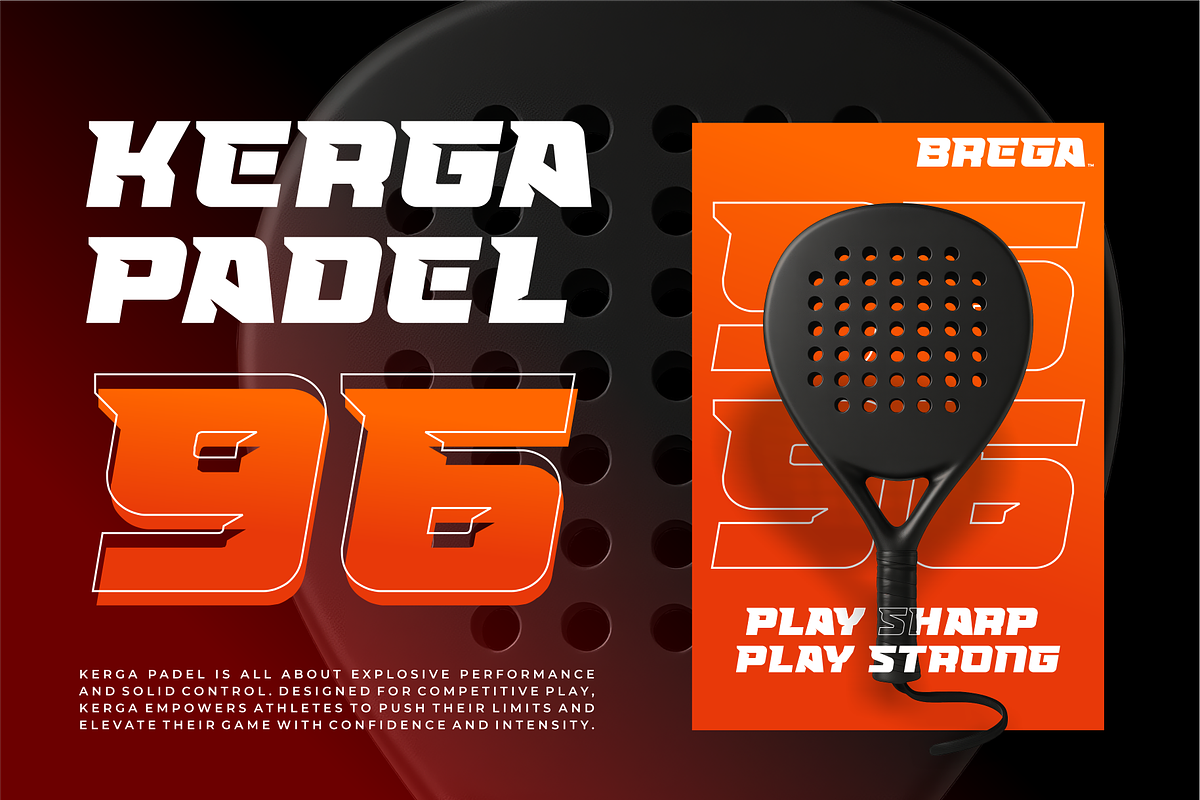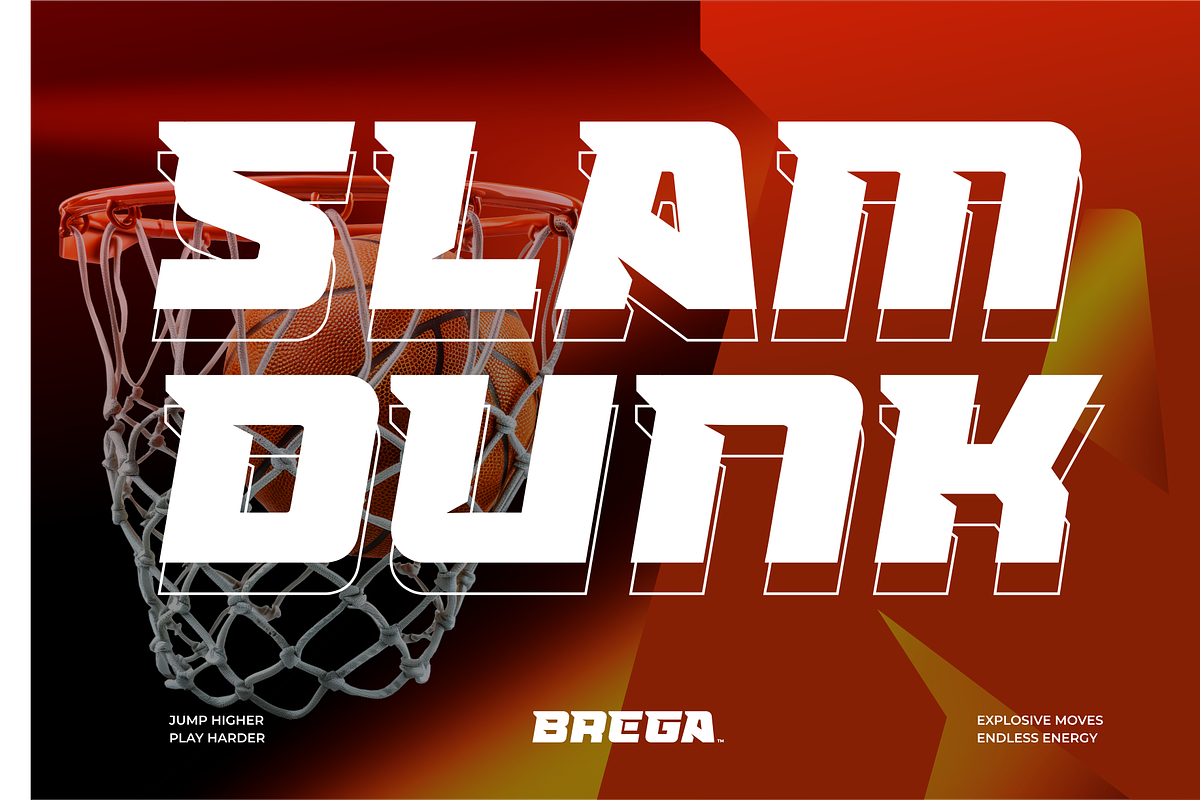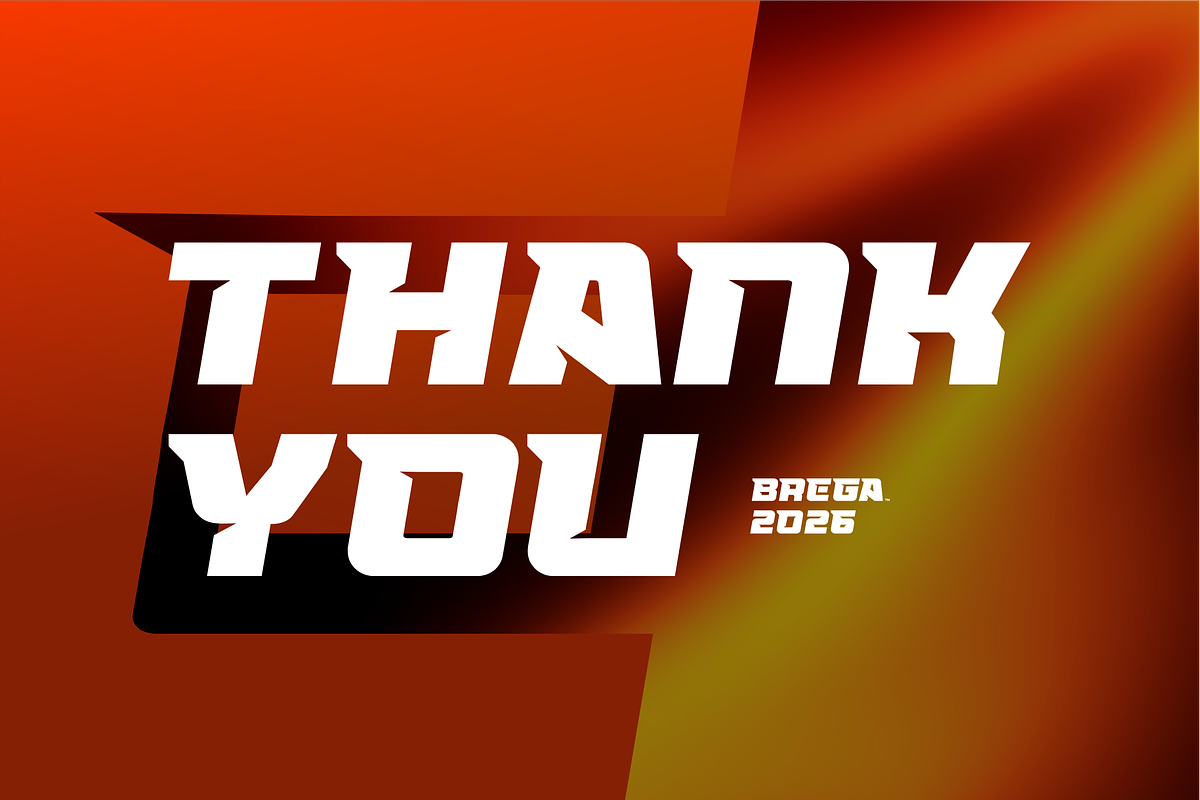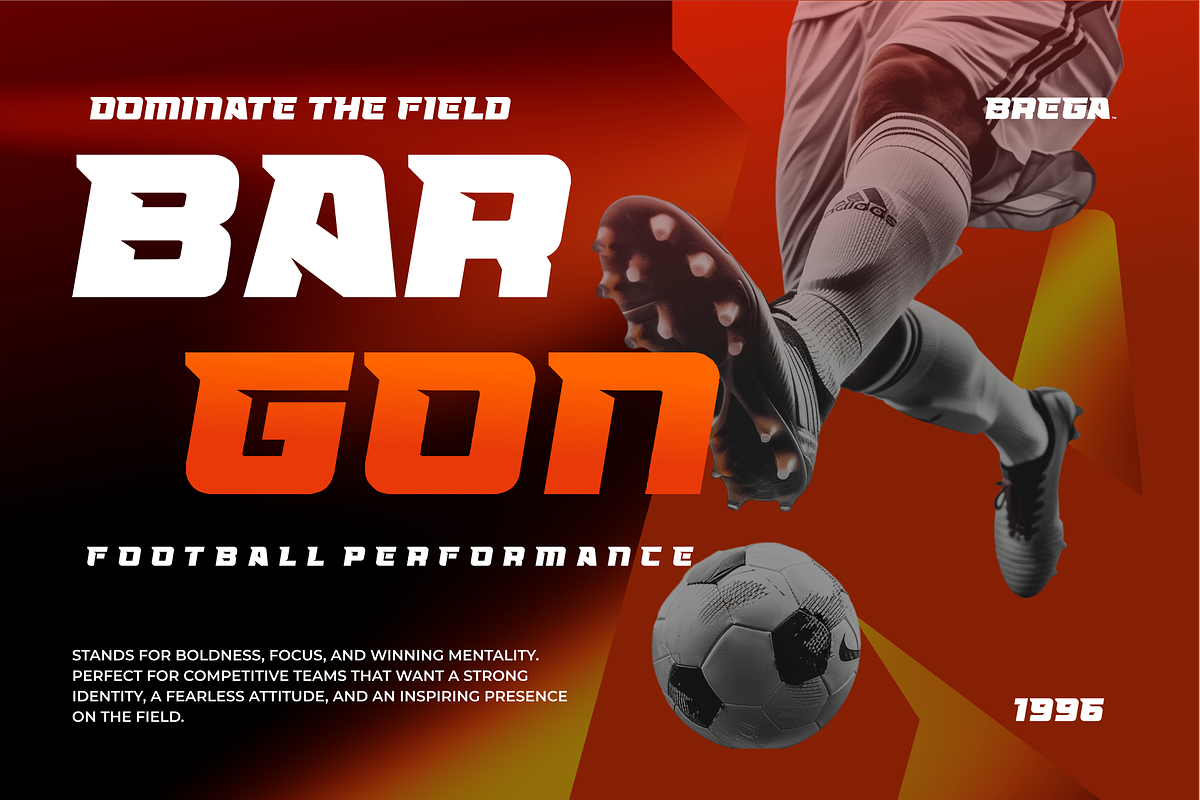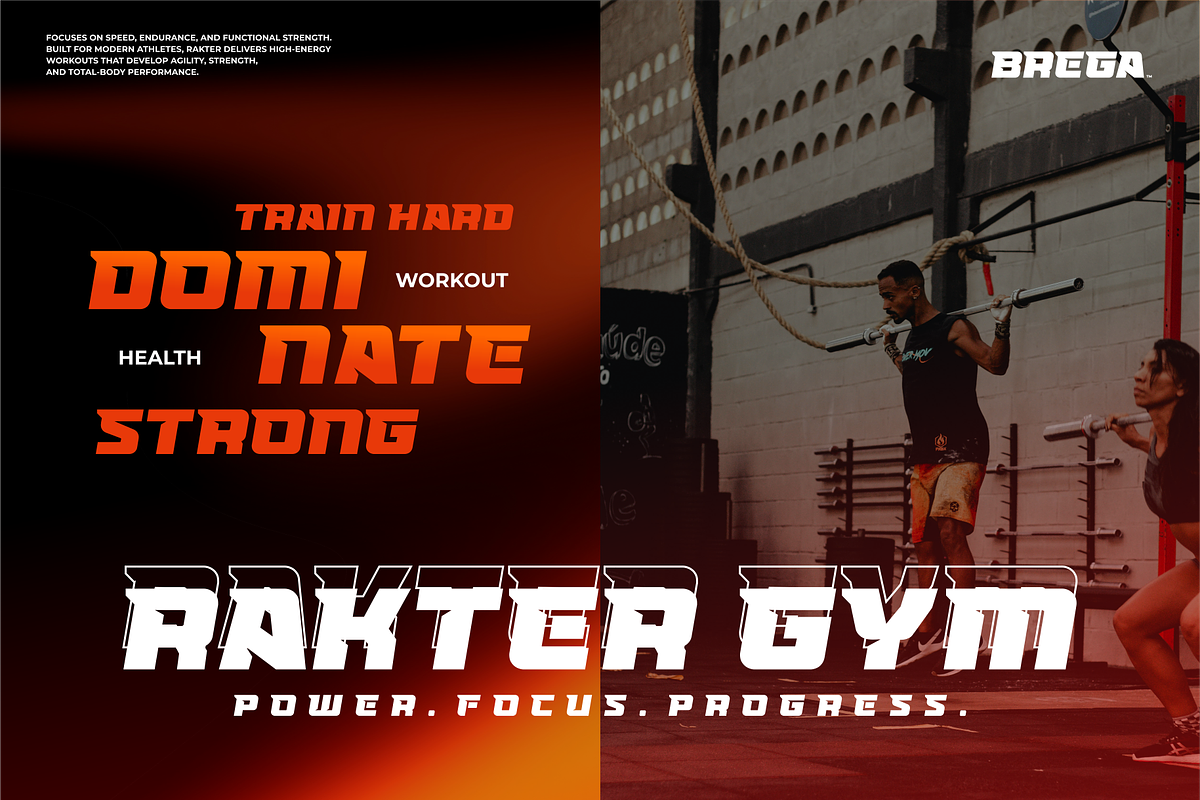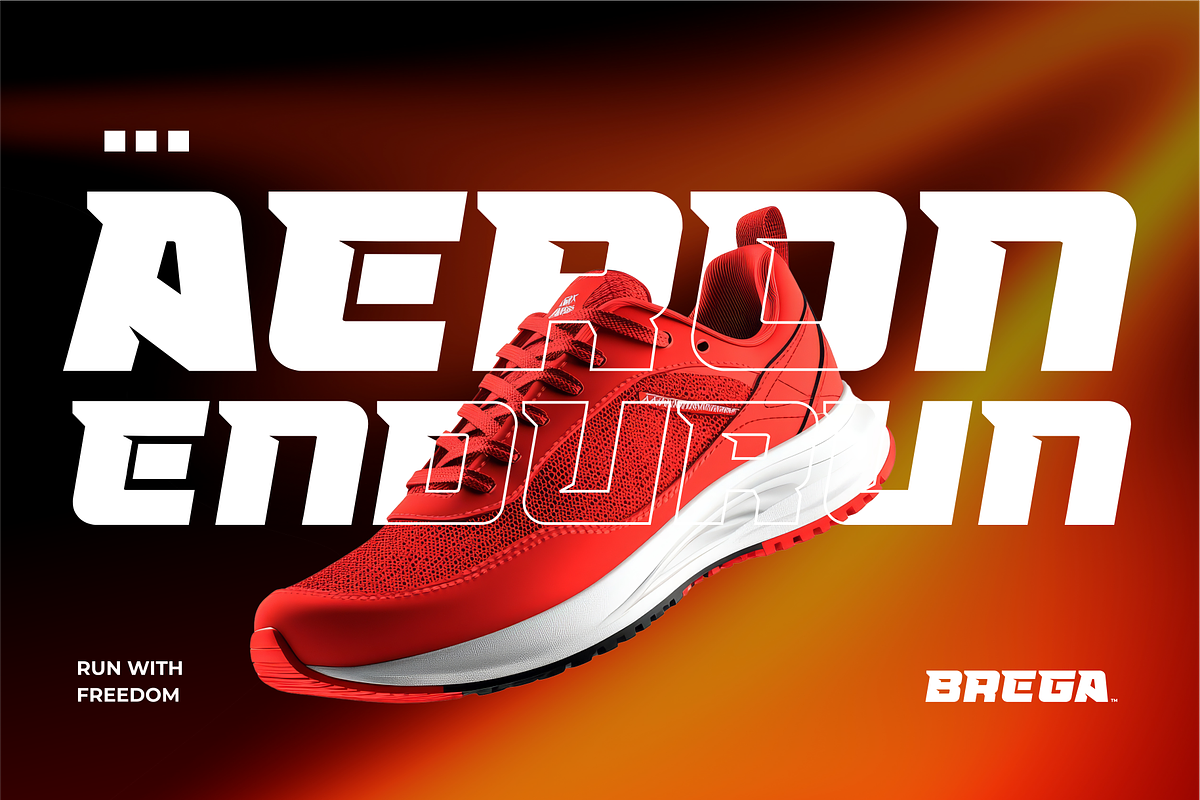
BREGA – Bold Sport Display Font
BREGA is a bold sport display font built for strength, speed, and impact. Featuring sharp edges, solid proportions, and a dynamic athletic style, it is perfect for sports branding, team identity, and fitness-related designs.
Ideal for gym branding, football and basketball posters, racing graphics, esports visuals, logos, apparel, and digital promotions. BREGA delivers strong readability with a modern, powerful, and professional sport aesthetic.
BREGA is created to support strong, modern, and competitive designs. Whether for branding, promotion, or digital media, this font delivers clarity, power, and consistency across every application.